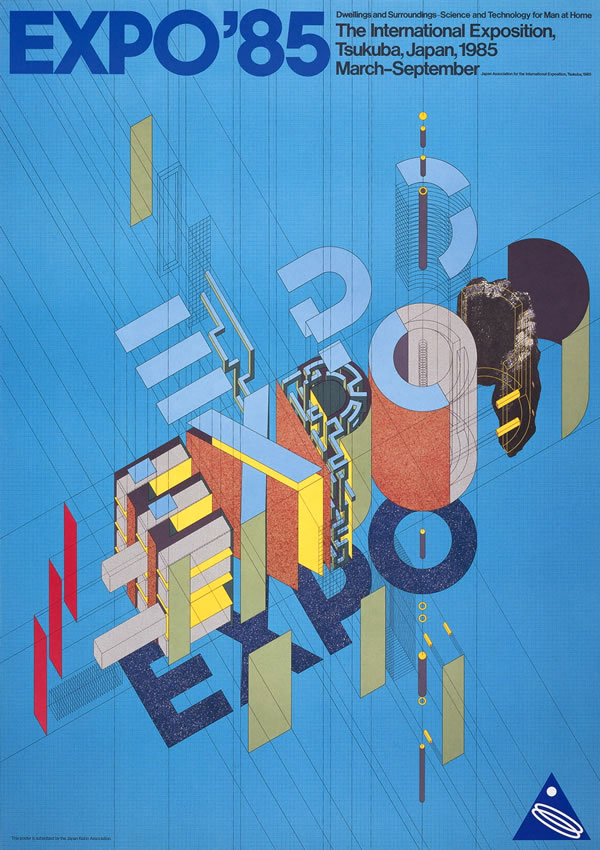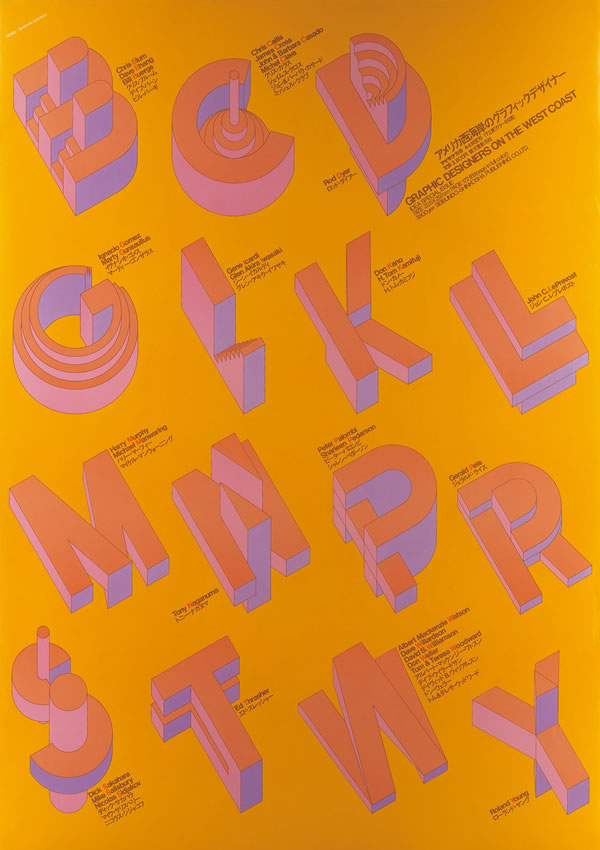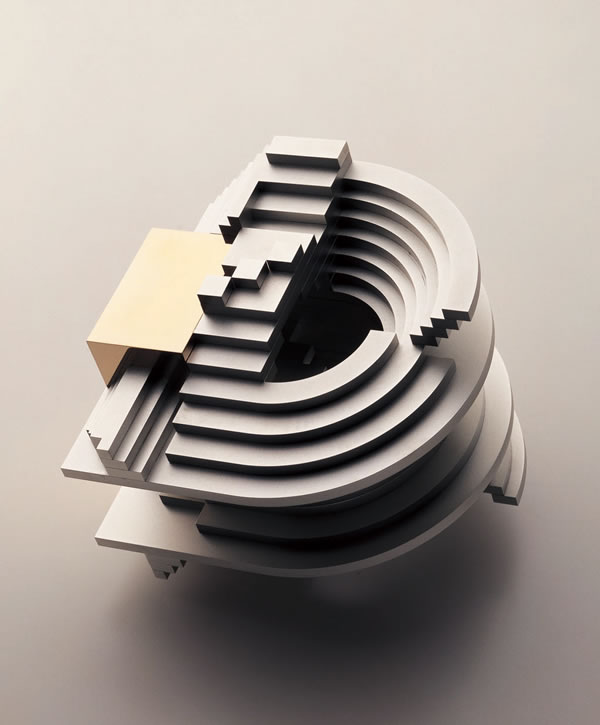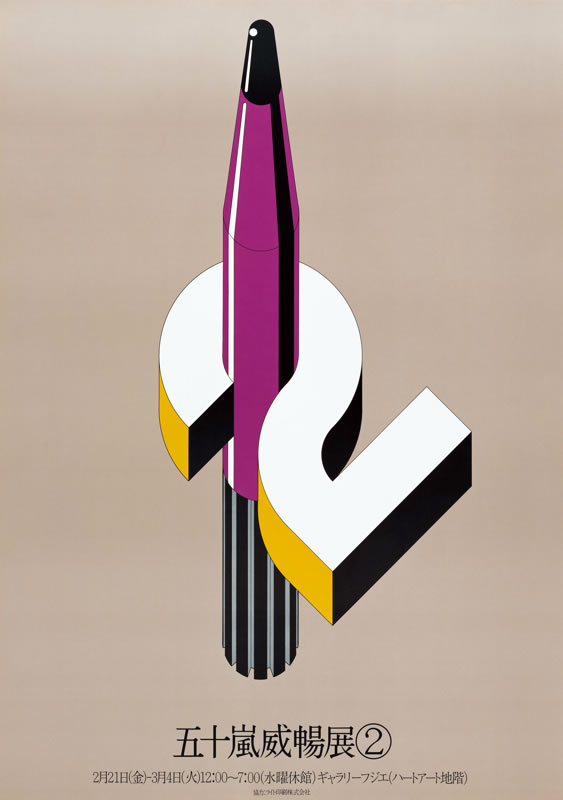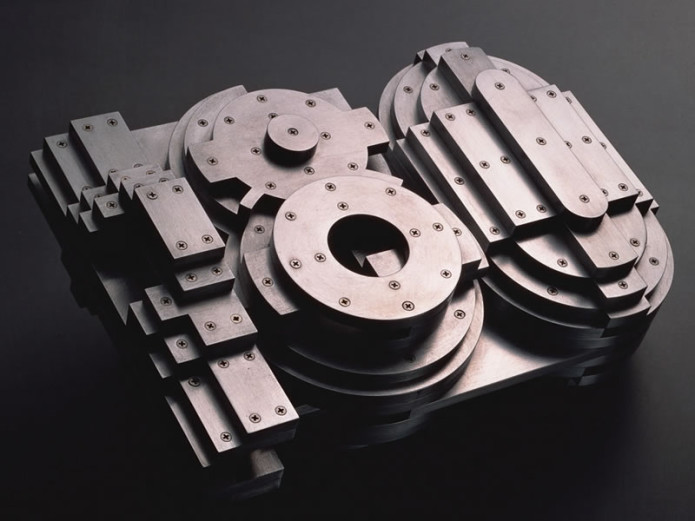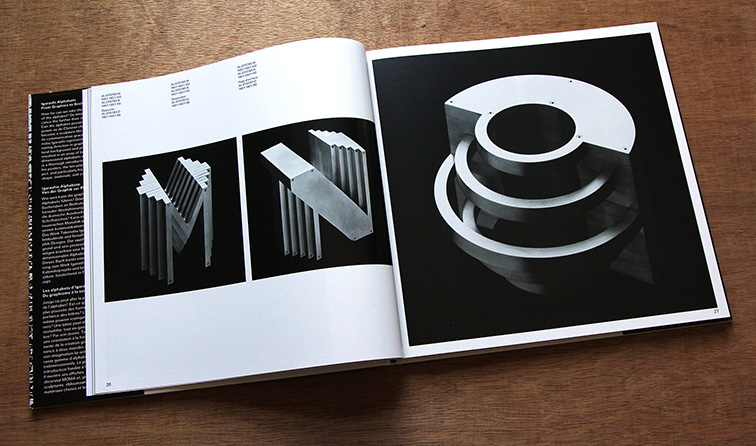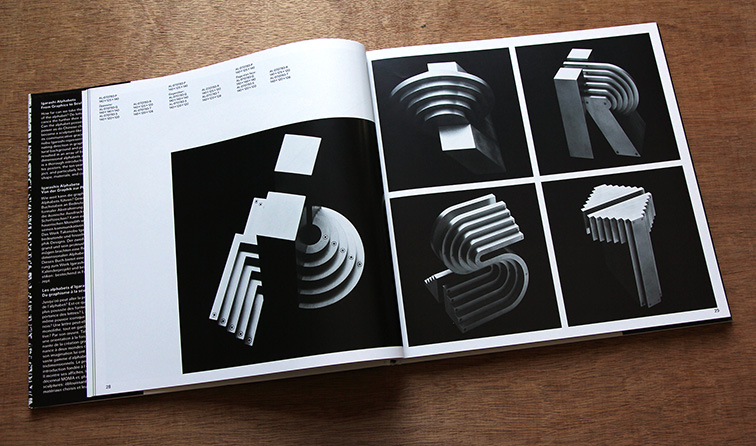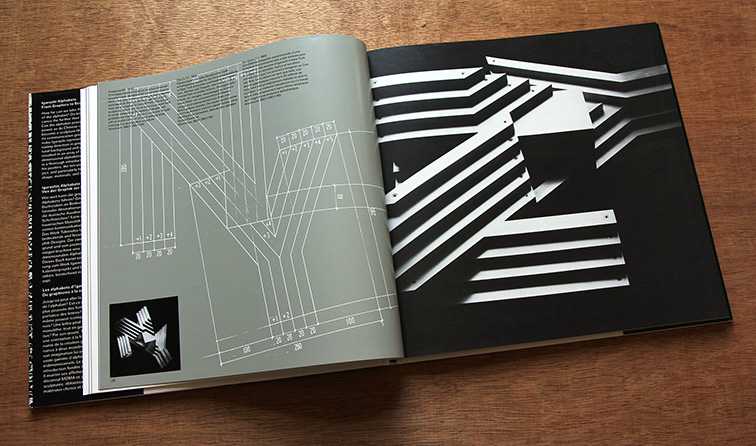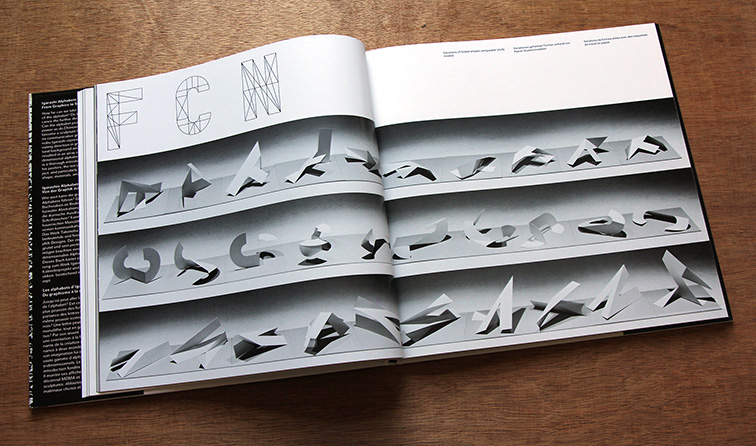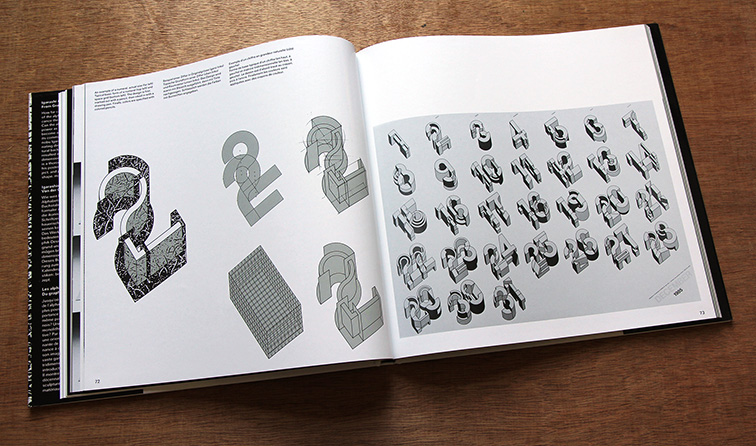
East meets West in the stunning typography of Takenobu Igarashi
One of Japan’s most prolific artists, Takenobu Igarashi attained international acclaim as a graphic designer in the mid-1970s through his axonometric alphabets and just in case you are wondering what this is, be prepared to enter the multi dimensional artistic landscape of a man who makes headlines anyway possible. Either as a featured artist himself or an editor and designer for publications that strived to introduce outstanding works of international designers Takenobu Igarashi is a true Japanese at heart. “My approach to design and sculpture has always wavered between my wish to do something useful for society, and my desire to create something beautiful with my own hands. In my opinion there are three essential things in work: passion, challenge and discovery. Without that, work gets boring; with that, work is enjoyable. And artwork that is enjoyable also results in success” he says.
Having designed visual identity programs for domestic as well as international clients such as Meiji Milk Products Co. Ltd., Suntory Holdings Ltd., Mitsui Bank Ltd., Tama Art University, Oji Paper Co. Ltd., and UHAG., the man who was born in Hokkaido in 1944 advanced into the field of product design in the 80’s, whilst he started making alphabet sculptures. The calendar with three-dimensional numerals, which he designed for eight consecutive years for the Museum of Modern Art is one of his masterpieces. In the late 80s he supported Japanese regional industries by designing products employing their traditional craftsmanship.
A man of many talents, just like the variety of materials he experiments with, Igarashi is a member of Alliance Graphique Internationale (AGI) since 1980 and he is actively involved in nurturing the younger generation as a teacher at Chiba University and the University of California, Los Angeles (UCLA), as a collaborator in the foundation of the Faculty of Design at Tama Art University (Kaminoge Campus) or as the first Head of Design Department there. In 1994, he ended his 25 years of design activity and moved to Los Angeles to become a sculptor and a decade later he returned to Japan where he has been producing various sculptures and reliefs for public spaces all over the country and has resumed his design activity from another view point as an artist.
What is amazing about Igarashi is his ability to transition toward product design and architectural sculpture as his career progressed. Igarashi’s work is varied. Heavy or delicate, grounded or airy, everything is there in as many materials as you can think of.
“I’ve been greatly influenced by Swiss artists who explored grid systems and mathematical order. I’ve also been influenced by Japanese architecture, which relies a great deal on unit systems”
A product designer by default, everything is crafted with a specific purpose and a spirit of invention by the man who is considered by many as a professed Modernist. His effort to lead a simple life even after attaining great status and success is outspoken, an enemy of consumerism and information pollution of megacities today. “I started making alphabet sculptures in the 1980s using various materials. The aluminum series, however, is the only one that is complete with 26 alphabets from A to Z” he commented on one of his numerous typographic projects and experiments in both 2D and 3D mediums showcased in his book, ‘Igarashi Alphabets: From Graphics to Sculptures’.
“I’ve been greatly influenced by Swiss artists who explored grid systems and mathematical order for form creation and space. I’ve also been influenced by Japanese architecture, which relies a great deal on grid and unit systems” added the typographer and artist whose purpose is to present great design ideas of pure yet modern clarity. Representative works are in the permanent collection of over 30 museums world wide and books on his artistry have been published in Japan, China, Korea, Germany and Switzerland. He has been awarded the Commendation of the Minister of Foreign Affairs, Katsumi Masaru Award, the Mainichi Design Award, the IF Design Award and the Good Design Award for his achievements and activities in the field of graphic and product design and he is President of Tama Art University from April 2011. What an alphabet of artistic conquests for an AppleMaster of our times indeed.